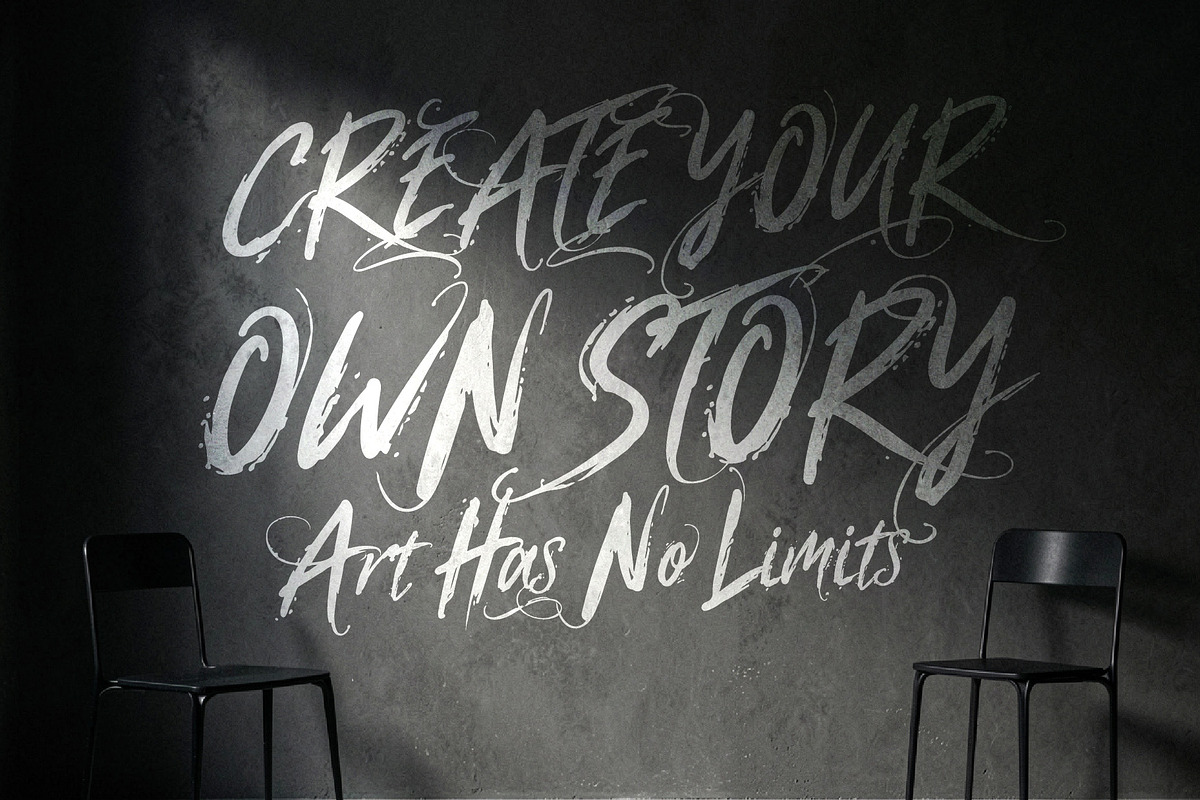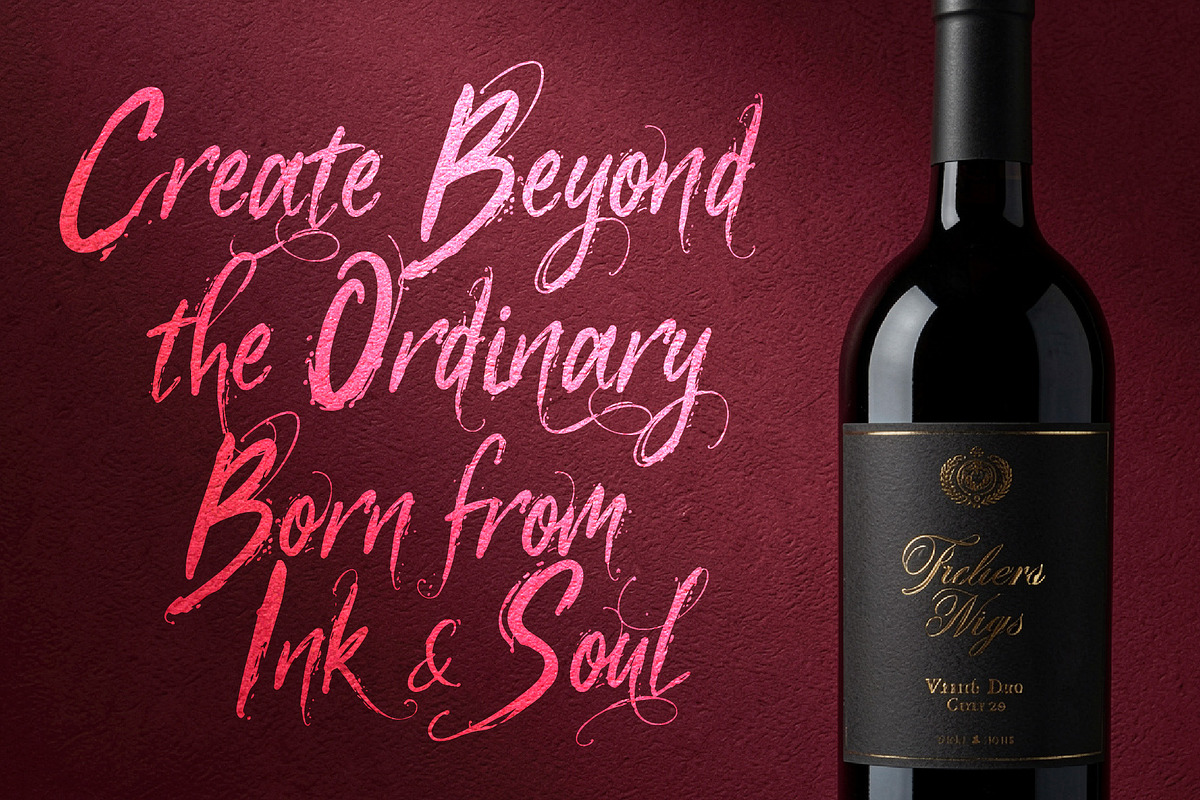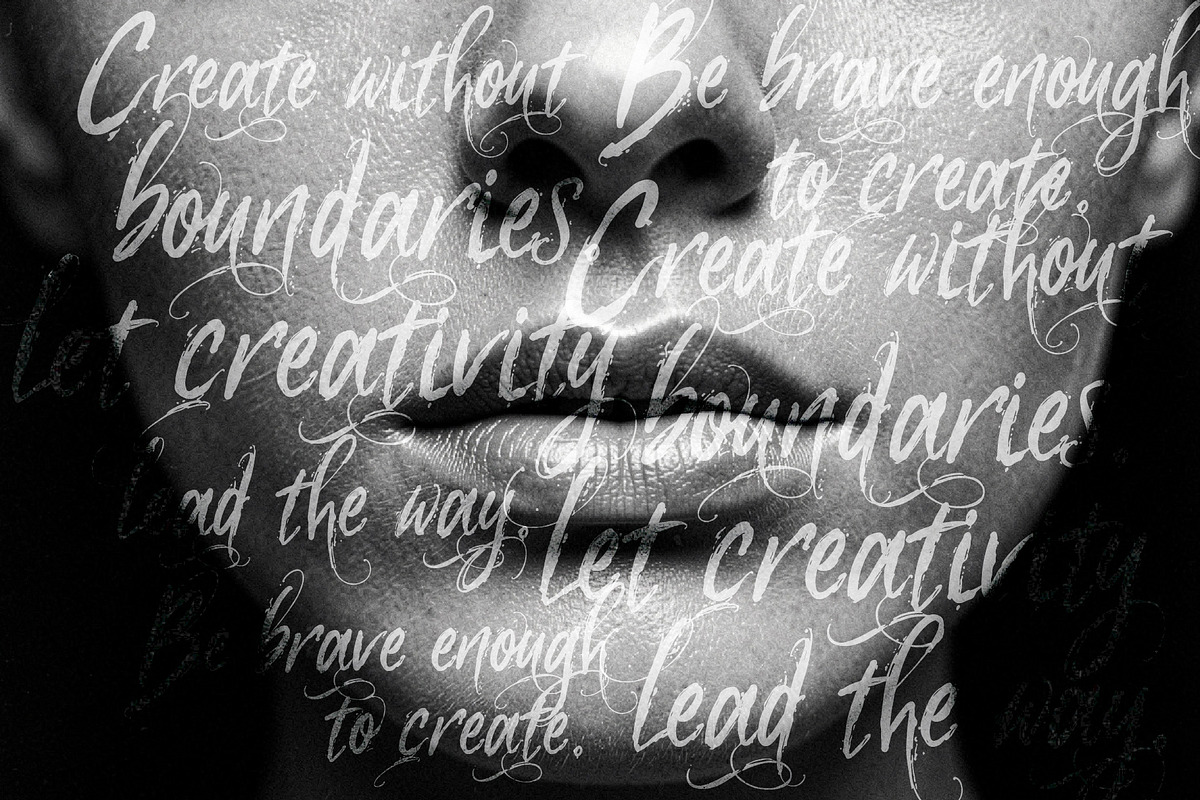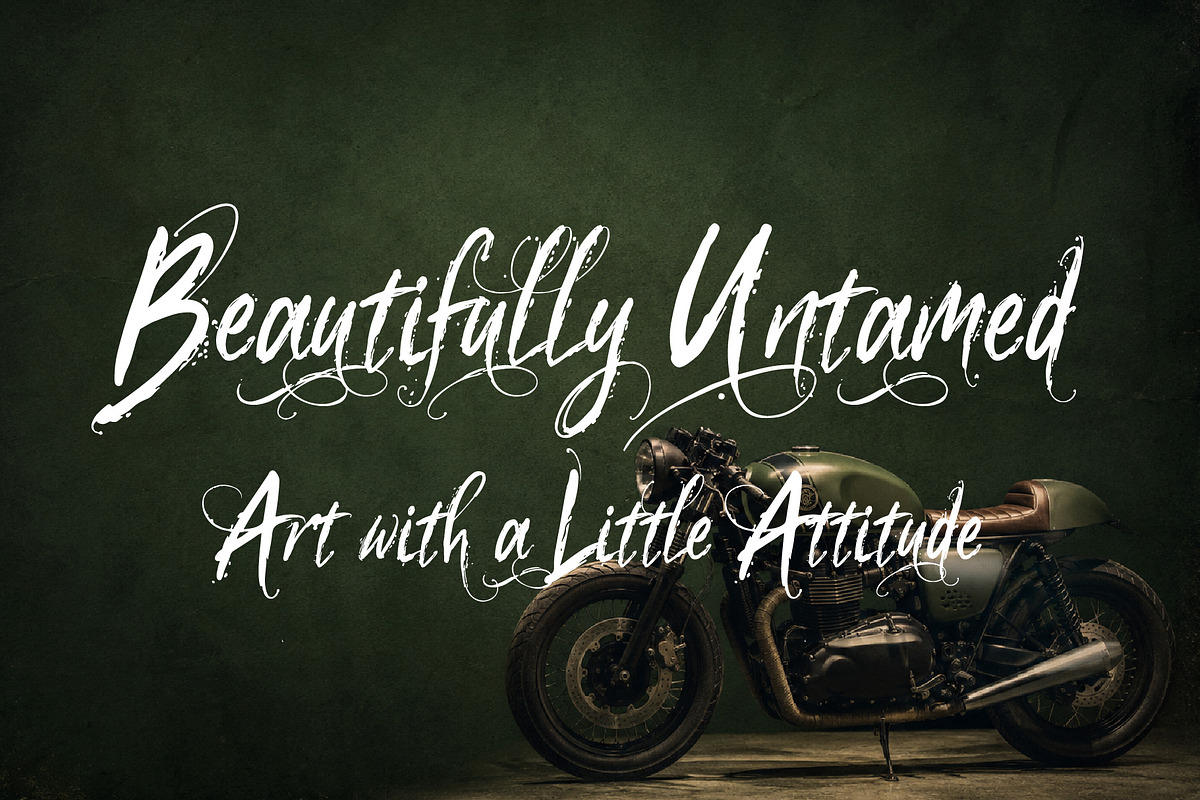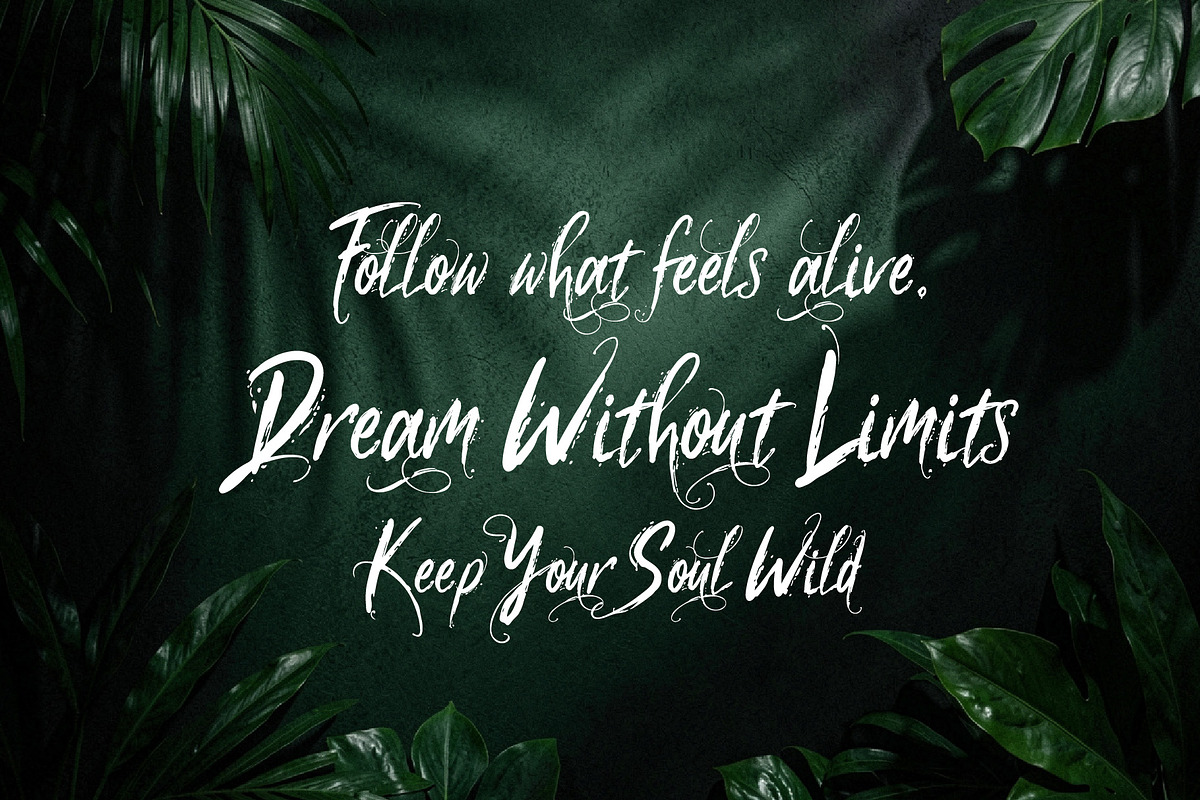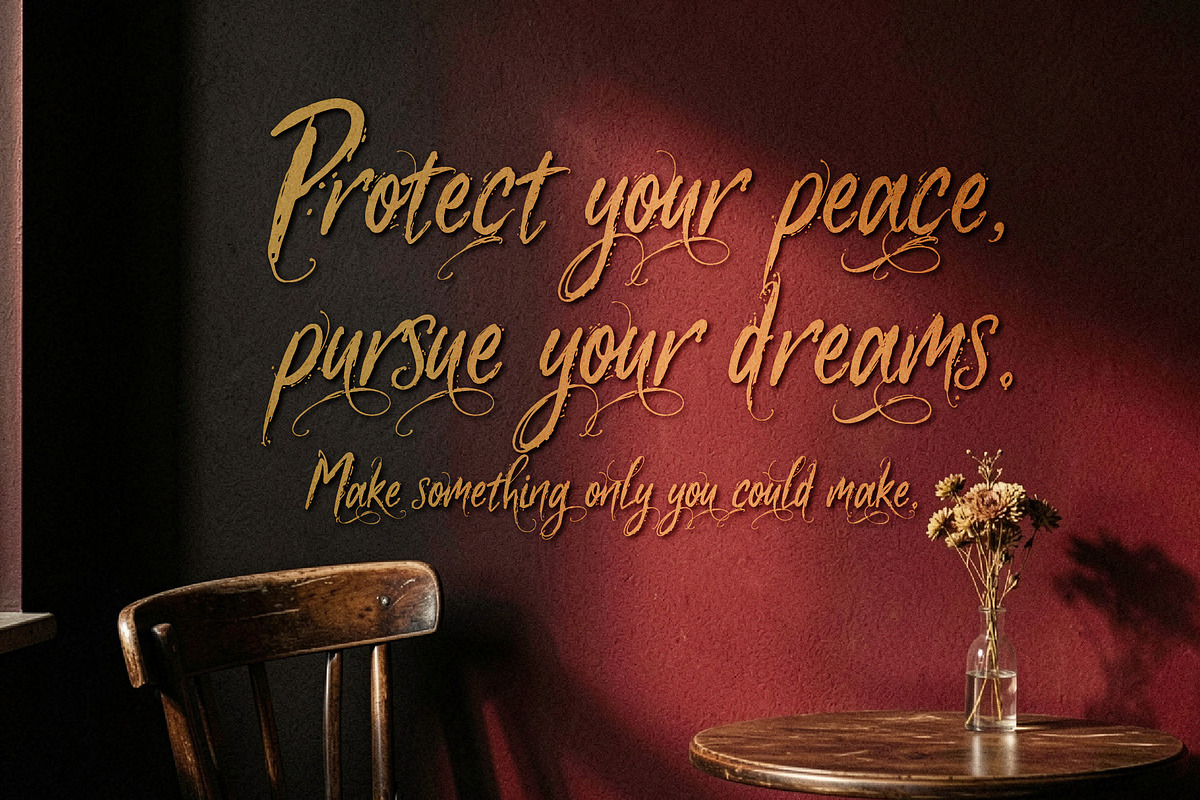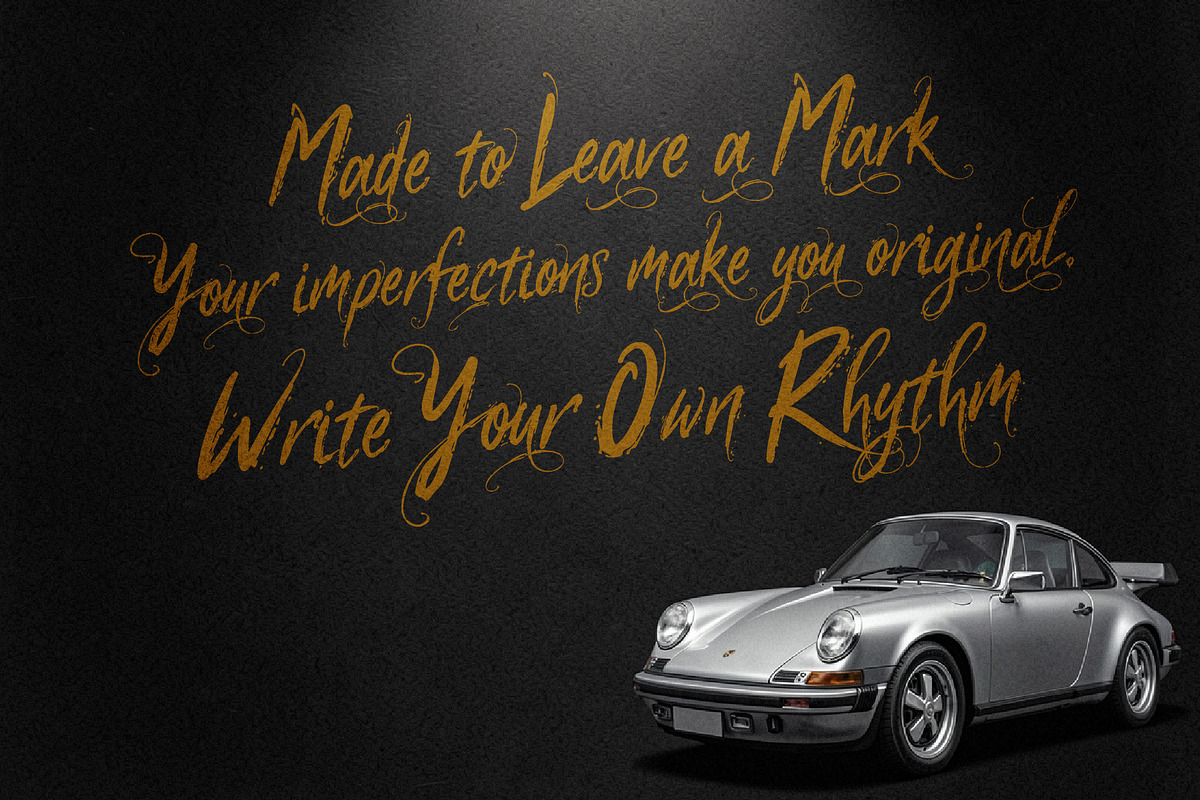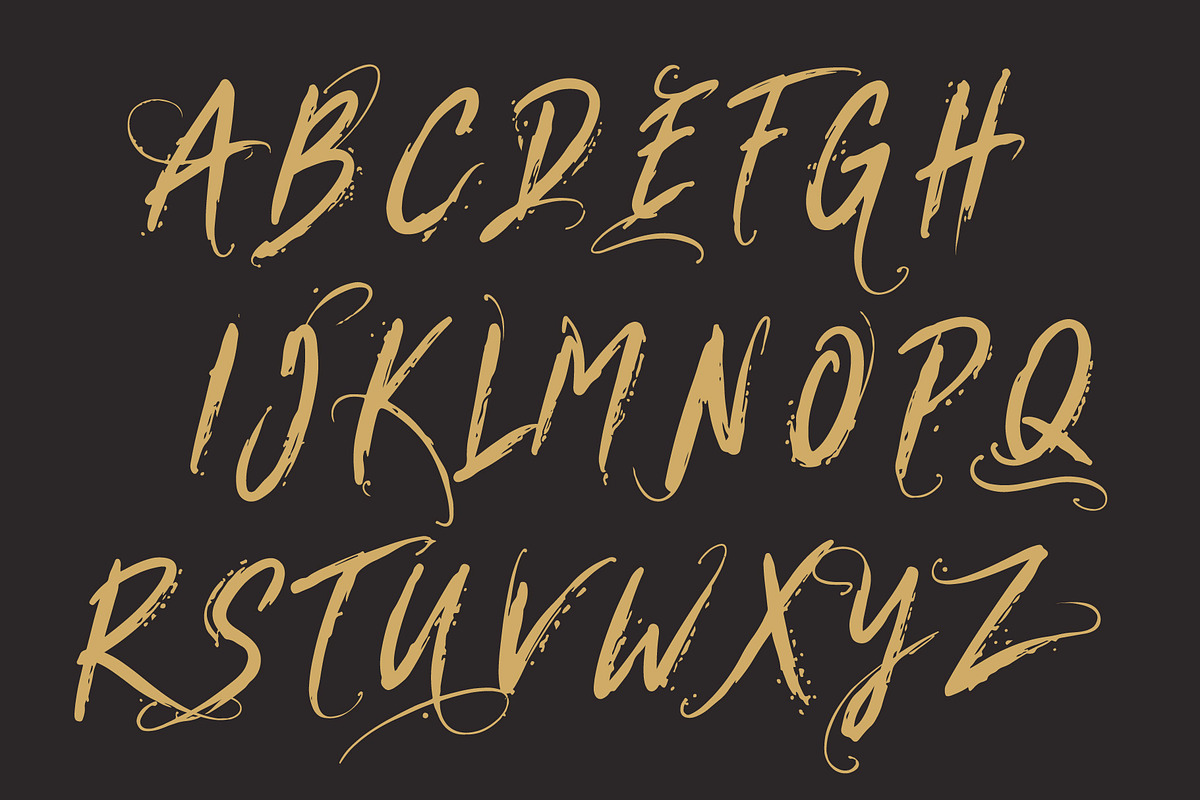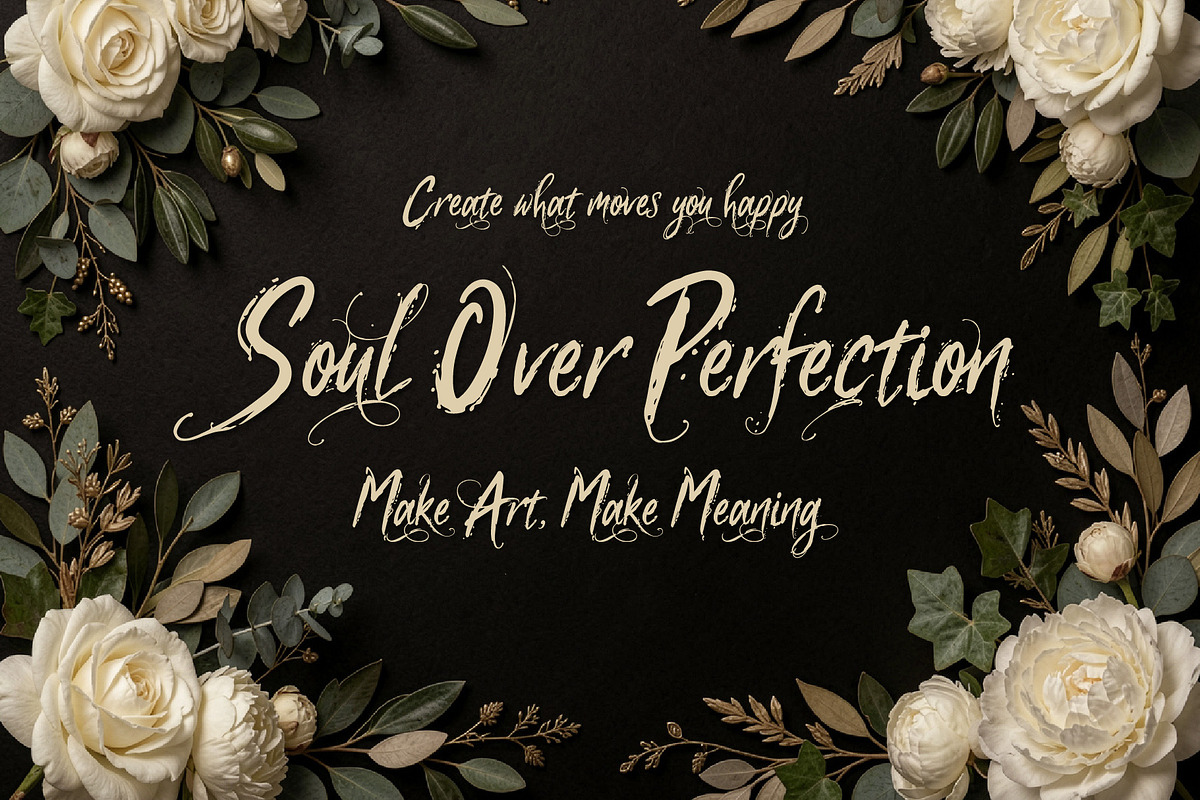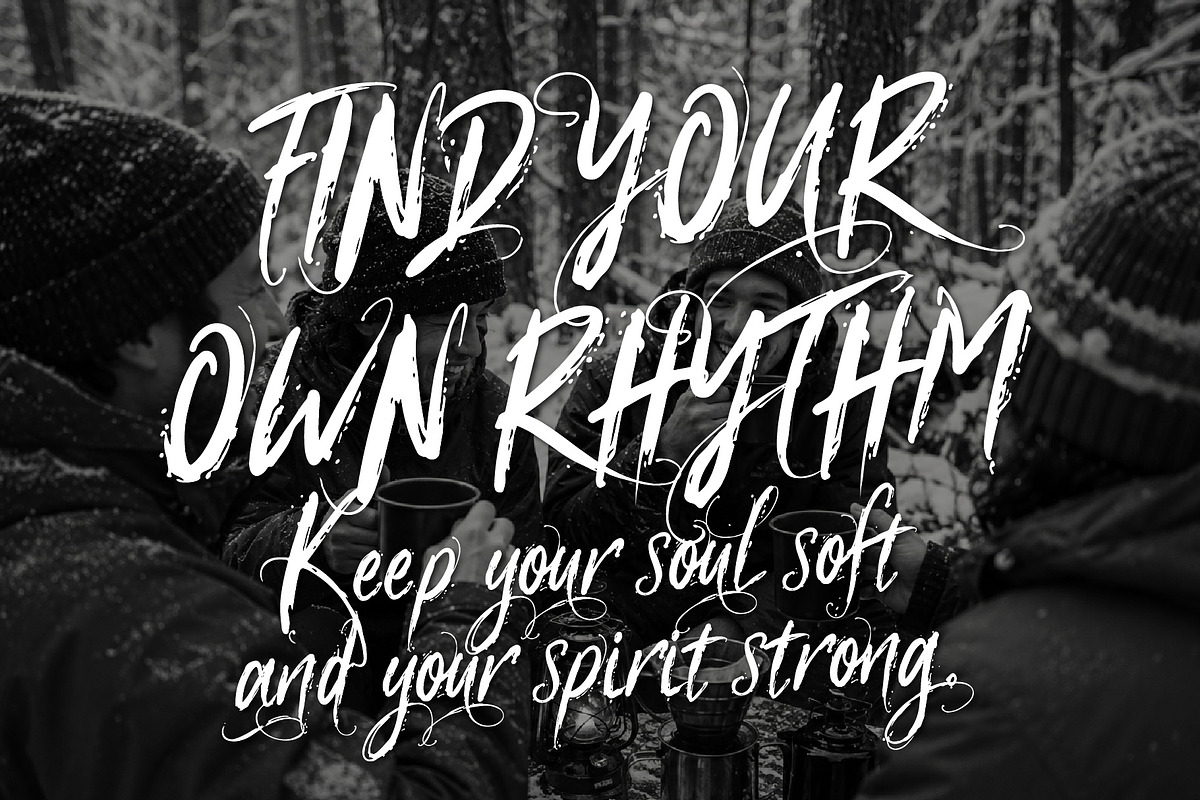
Eurama Ultura - Expressive Script
EuramaUltura is an expressive brush-calligraphy script that blends beautiful feminine handwritten strokes with a subtle urban grunge attitude. Its organic brush texture, flowing swashes, and imperfect details create a handcrafted artistic personality that feels both graceful and confident.
With a balance of raw character, elegant movement, and a touch of untamed energy, EuramaUltura brings emotion and individuality to every word. Inspired by creative journeys, open roads, distant places, and the freedom of adventure, it adds a sense of movement and wanderlust to your designs.
Perfect for travel and adventure branding, fashion, beauty, posters, album artwork, packaging, editorial designs, quotes, social media, lifestyle projects, outdoor campaigns, and creative projects.
A beautiful script for designs that want to feel artistic, feminine, soulful, adventurous, confident, and a little unexpected.